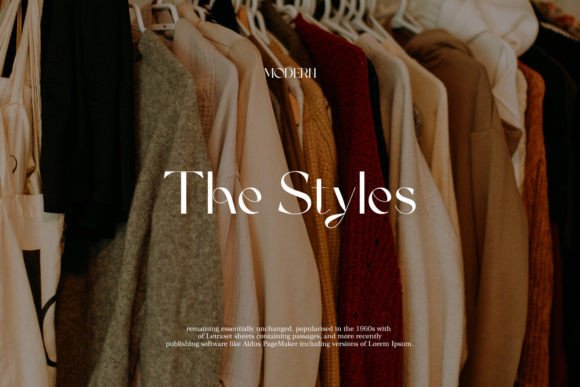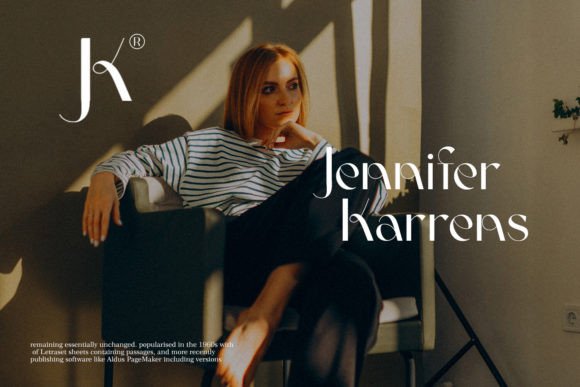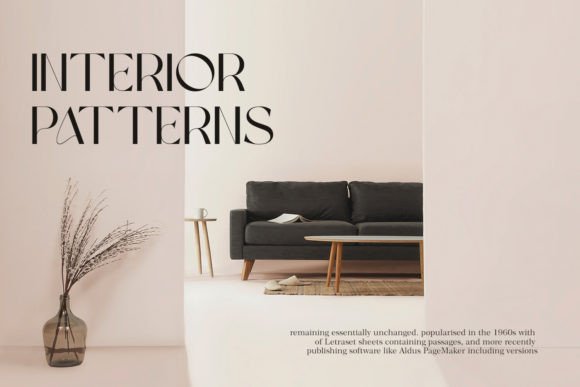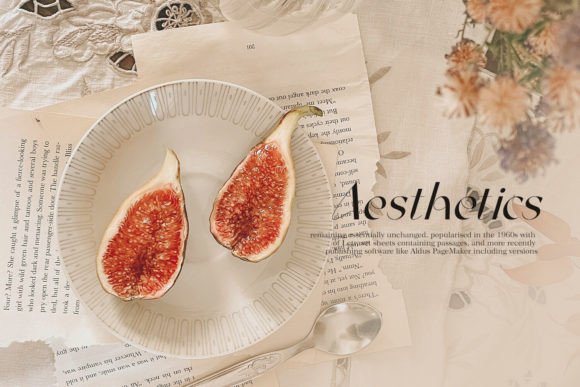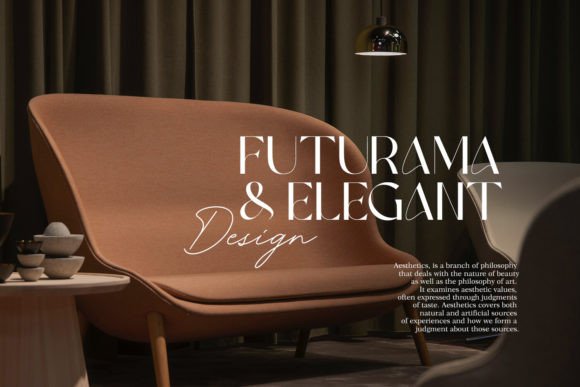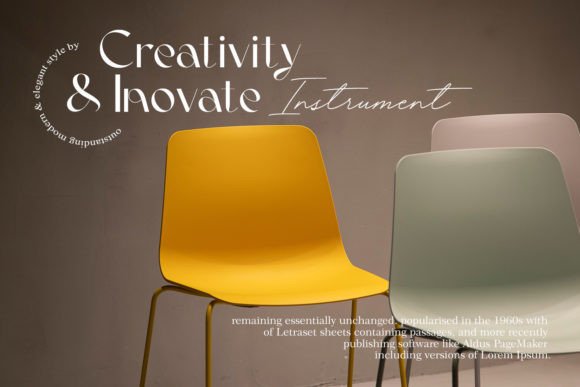
Introduction to Famely Font
Famely is a stunning typeface that can showcase beauty but with a minimalistic form.
With its graceful curves and smooth serifs, this typeface can evoke a sense of beauty with a class of elegance and glamour Whether used for branding, invitations, or editorial design, Famely adds a touch of glamour to any project.
Key Features of Famely Font